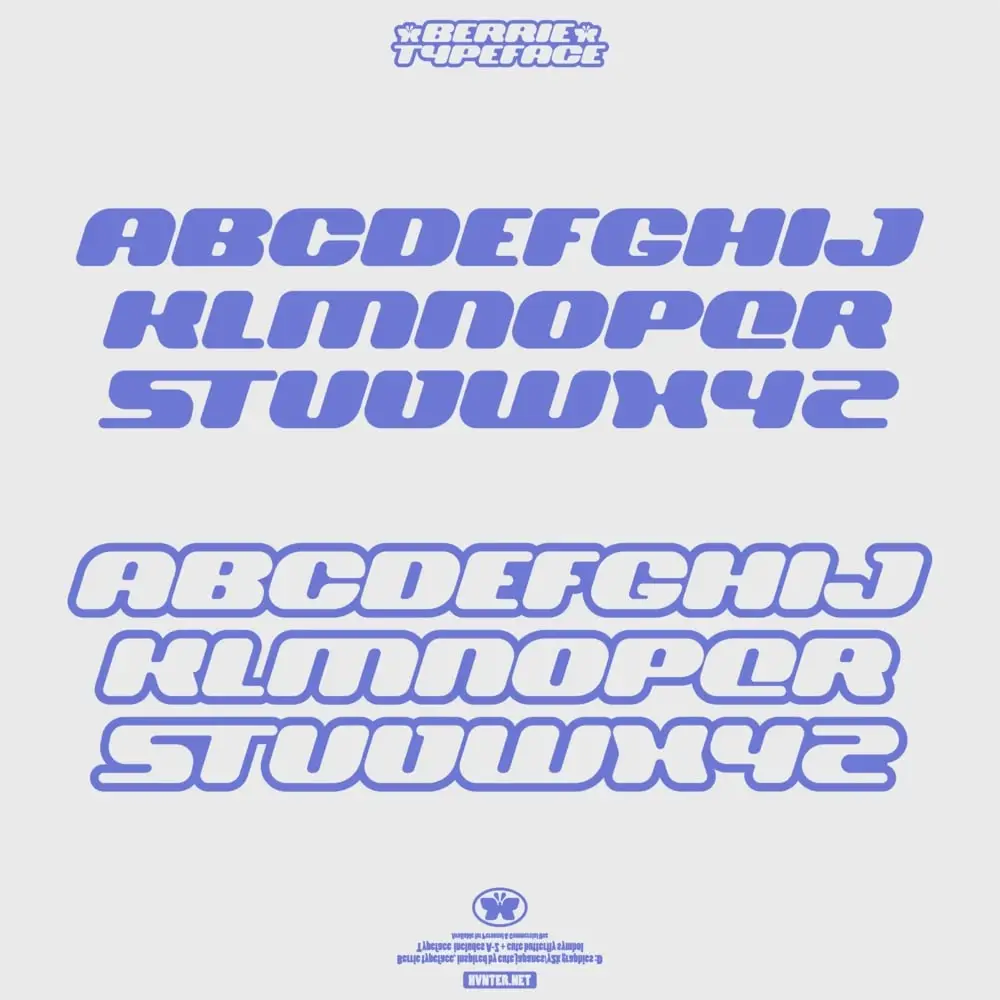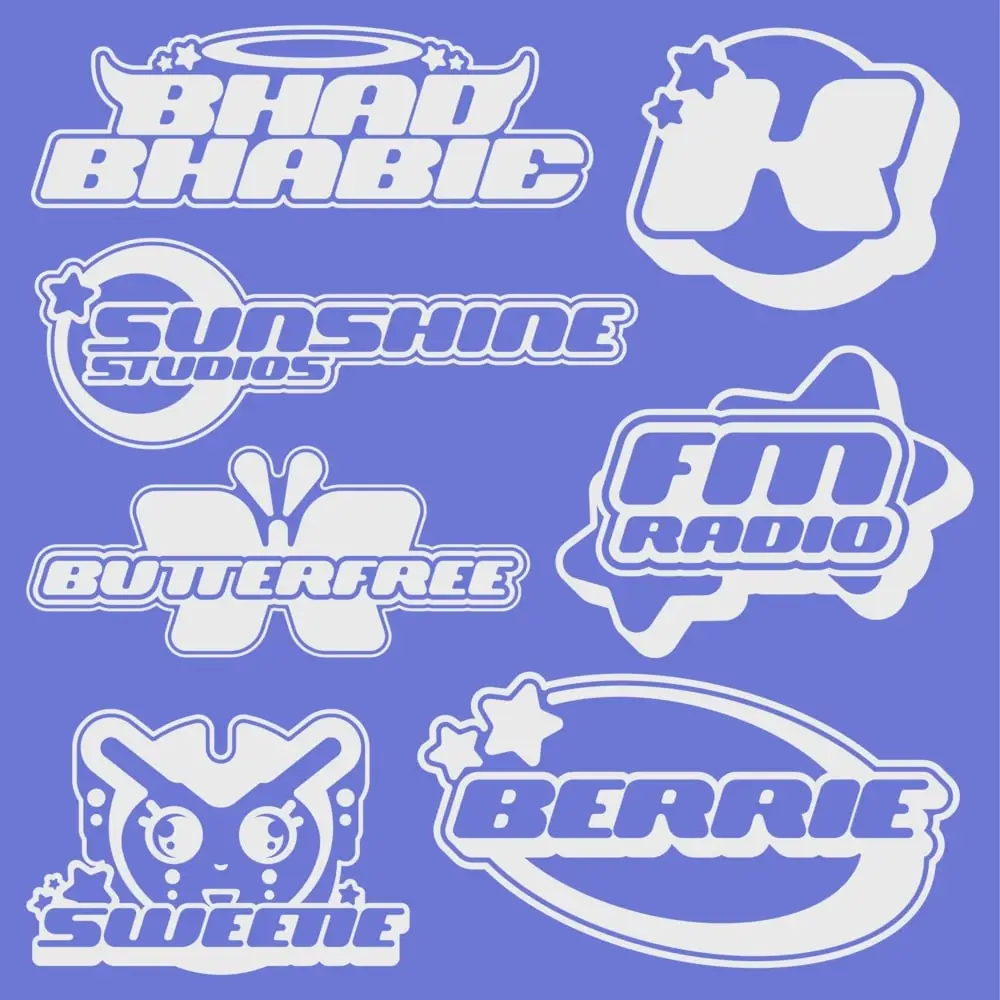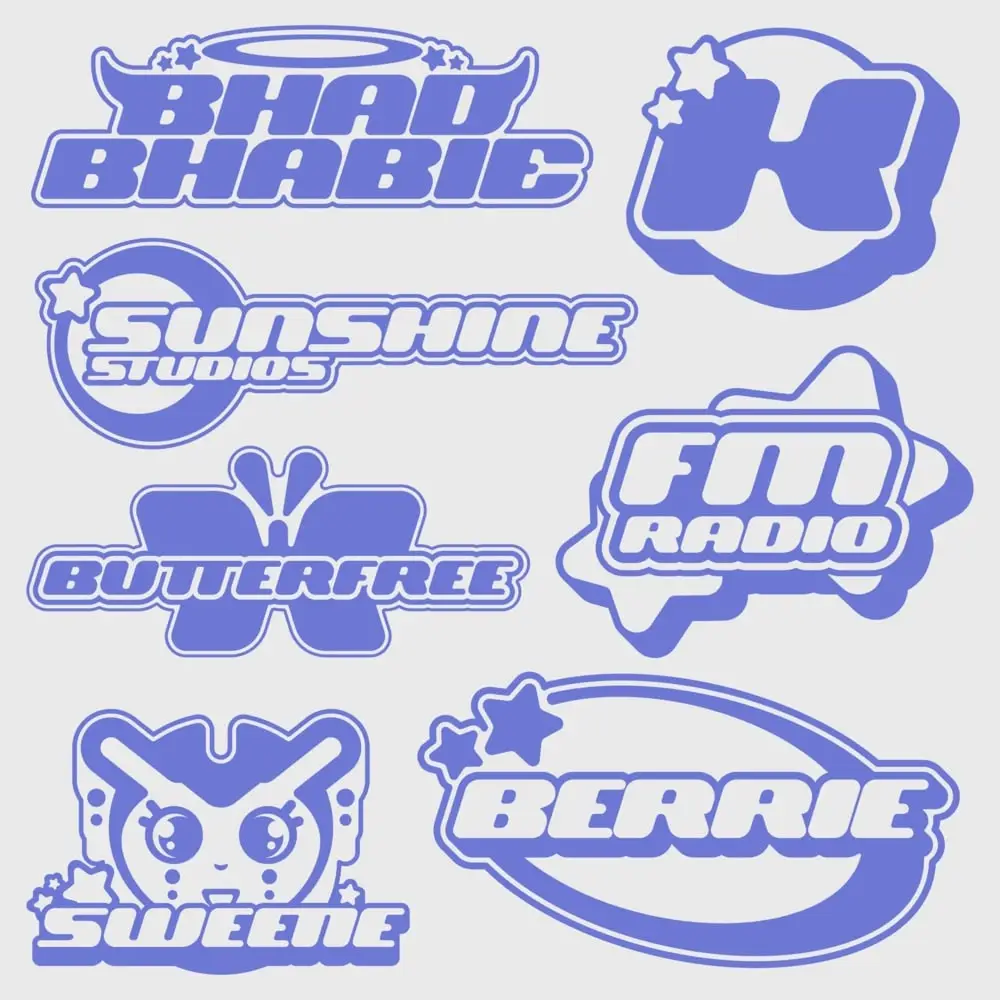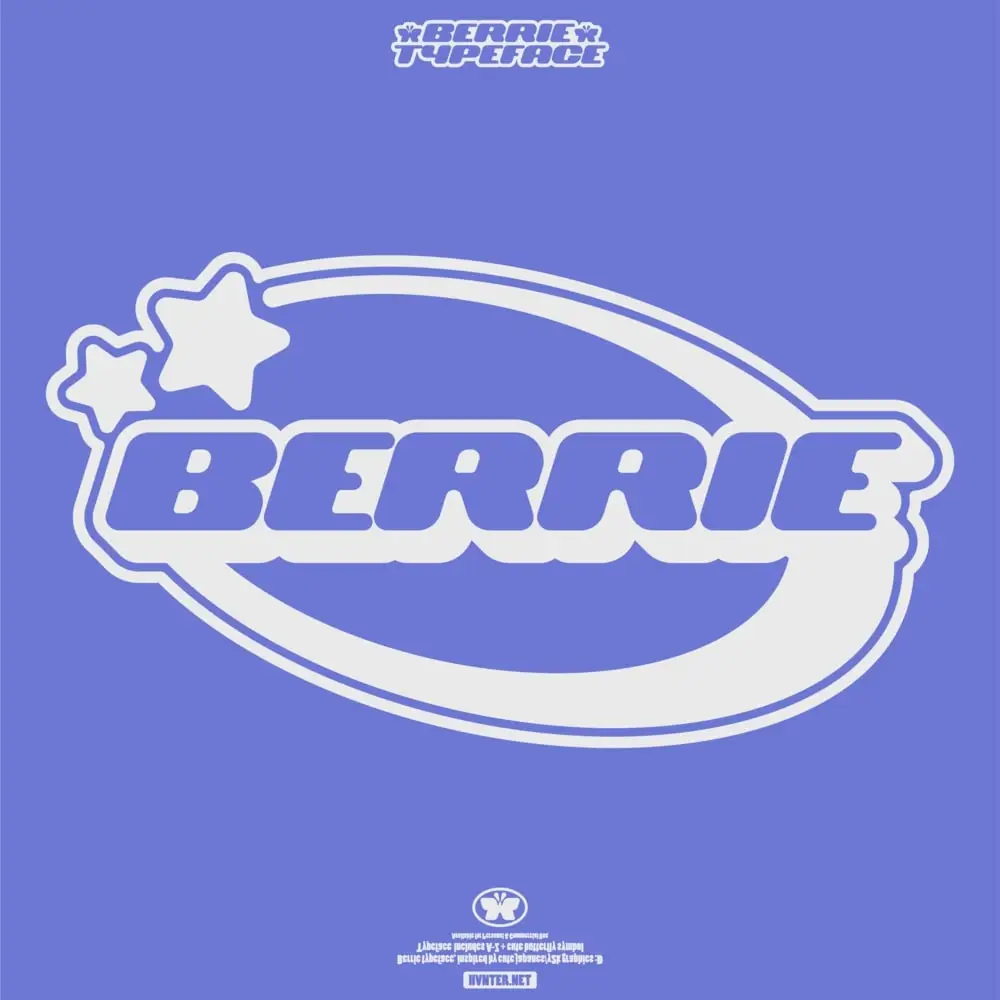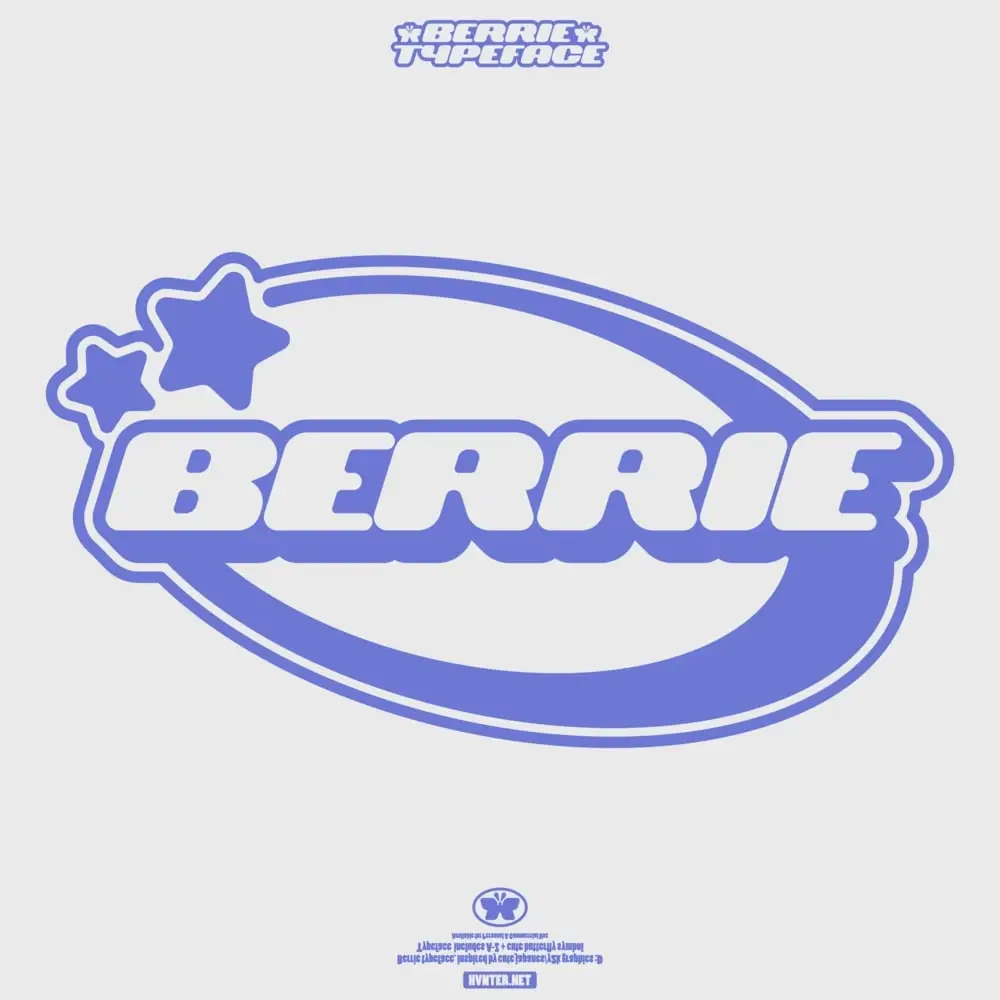
Berrie Typeface
The Berrie Typeface is a beautifully crafted font that brings a touch of elegance and personality to your design projects. With its unique character shapes and balanced proportions, this typeface is perfect for a variety of applications.
• Stylish and modern design
This typeface is ideal for branding, logos, web design, and print materials. Its distinctive style makes it a great choice for invitations, posters, and any project that requires a touch of sophistication.